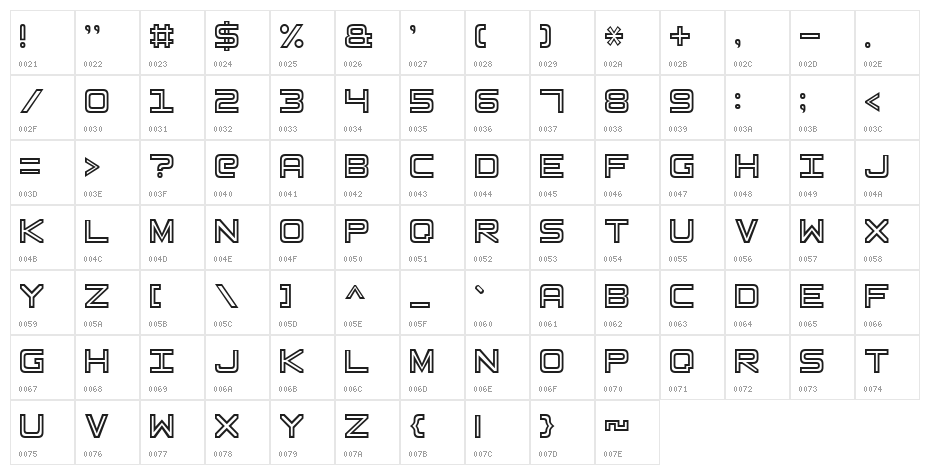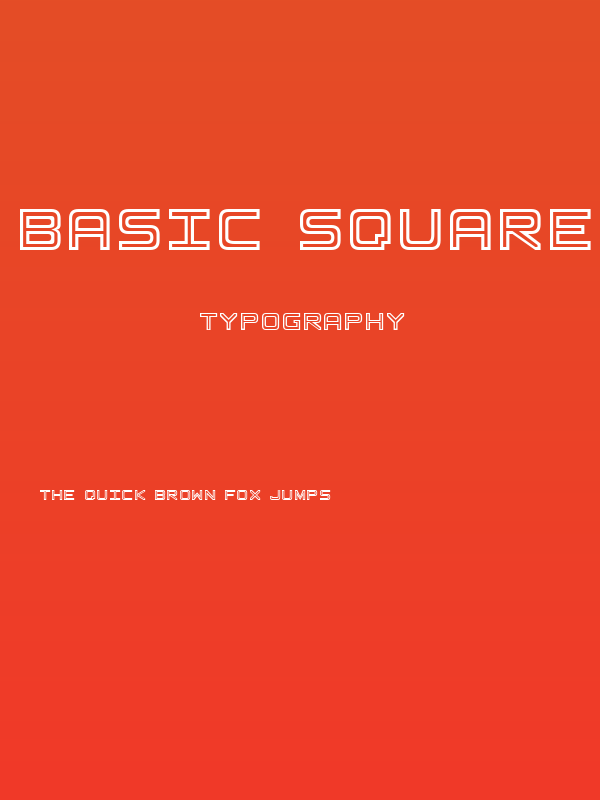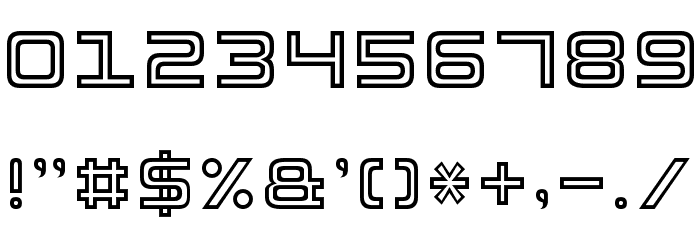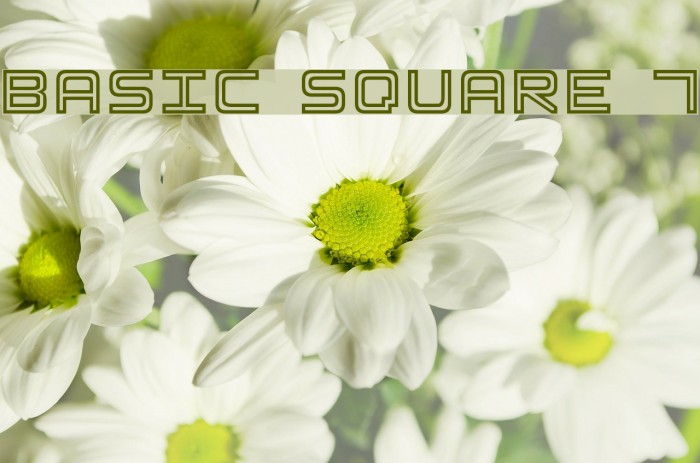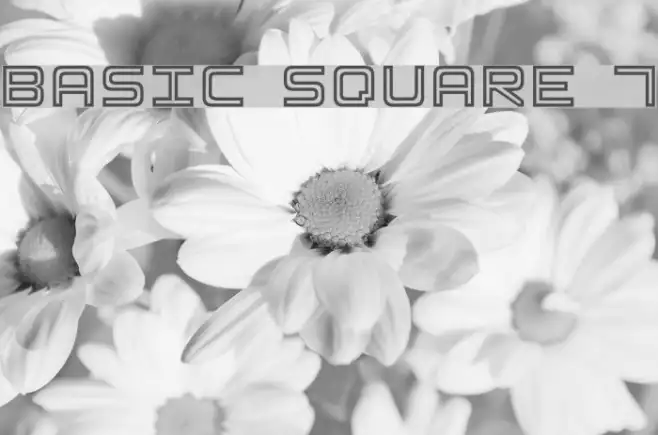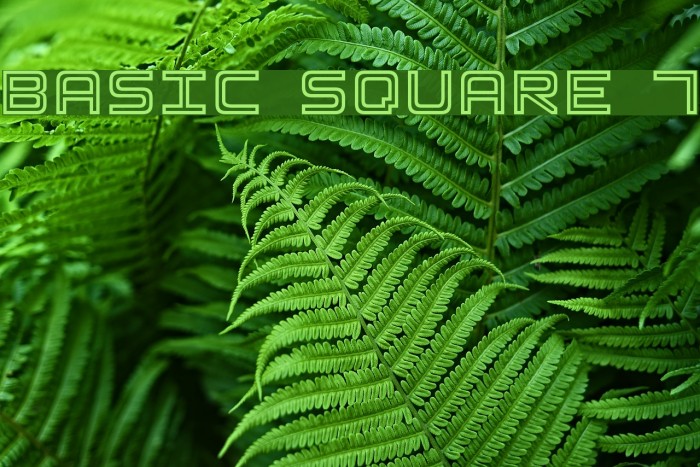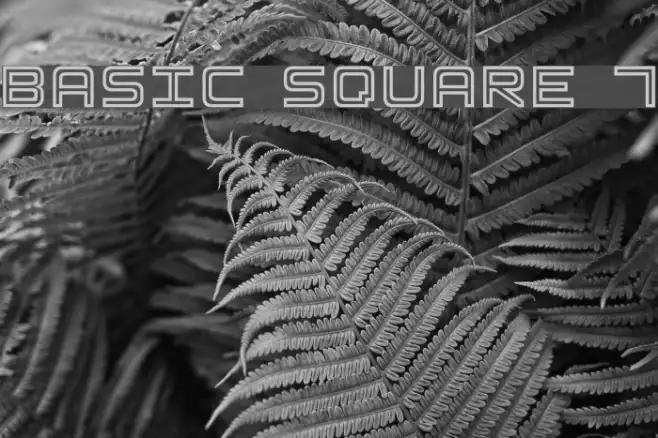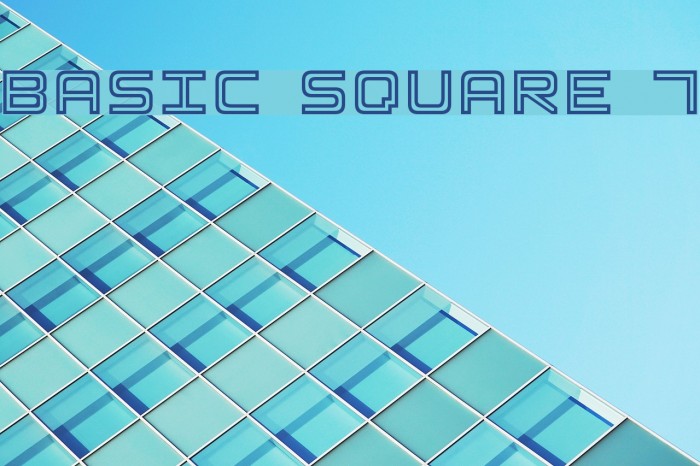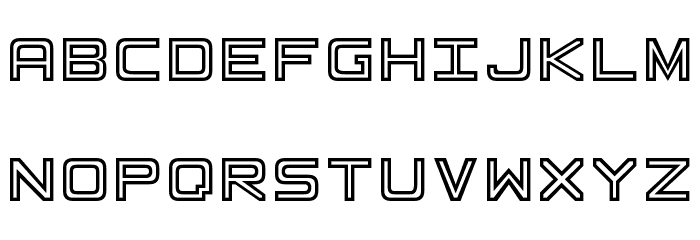
Basic Square 7 Font
Basic Square 7 Description
This font features a geometric, square-based design with a modern and futuristic appeal. Each character is outlined, providing a hollow effect that emphasizes its structural form. The uppercase and lowercase letters maintain a consistent width, creating a uniform appearance. The numerals and special characters follow the same design principles, ensuring a cohesive look across all elements. The font's clean lines and sharp angles make it suitable for digital and print media where a contemporary and tech-savvy aesthetic is desired.
| Use Case | Logos, Headlines, Digital interfaces |
| Proposed Projects | Ideal for tech branding, digital interfaces, video game graphics, and futuristic-themed posters. |